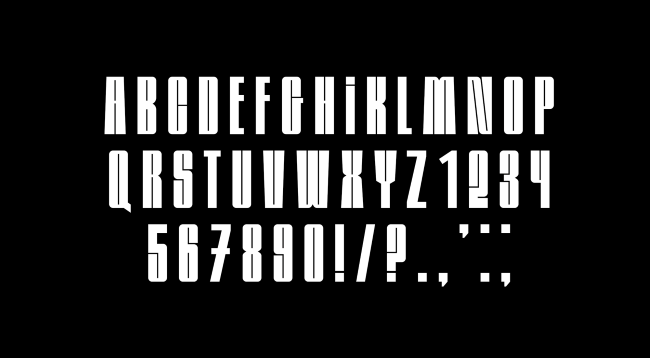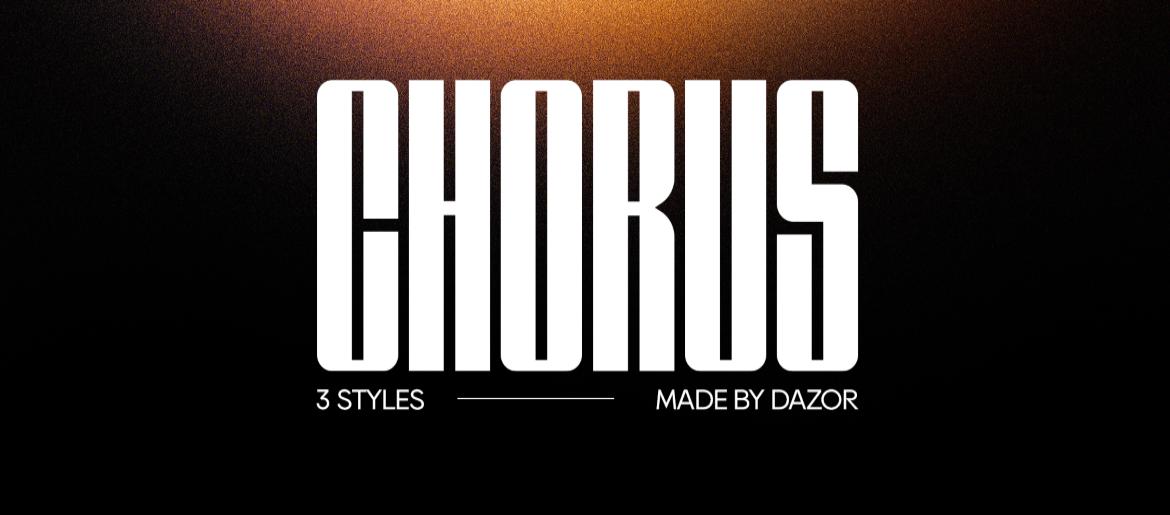
Chorus Font
CHORUS is a bold and contemporary display typeface designed by Dazor, inspired by the energy of music, rhythm, and visual motion. Every letterform feels alive — sharp, dynamic, and expressive — yet carefully balanced to maintain structural integrity and legibility. This makes it an excellent choice for designers who want to add movement and personality to their typography.
Whether you’re creating posters, album covers, branding, or striking headlines, CHORUS delivers a sense of rhythm and modern style that commands attention. Best of all, it’s completely free for personal and commercial use, making it a perfect addition to any creative toolkit.